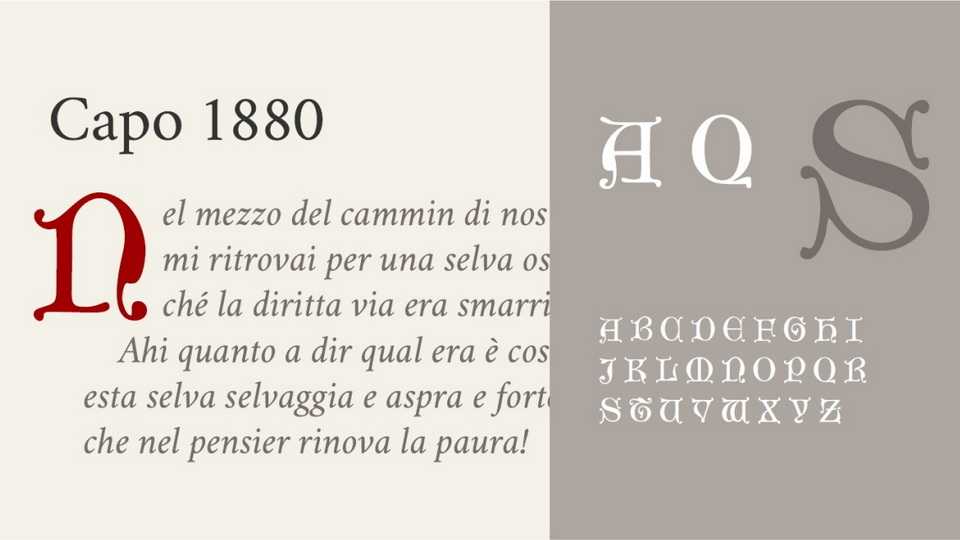
Download Capo 1880 font, a decorative drop cap typeface inspired by the ornate typefaces of the 1880s made by by the Cincinnati Type Foundry.
Designer: Michele Casanova